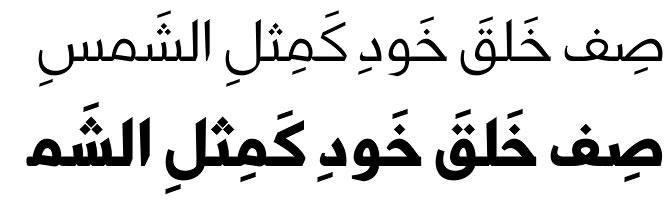
HS Almaha font
HS Almaha font is a modern Arabic typeface that offers many OpenType features. It can be characterized as a very successful combination as it features elements of modern Kufi and linear Naskh. The segments of its letters are made sharper and curvier in order to achieve greater readability. HS Almaha font supports Kurdish, Urdu, Arabic and Persian languages and offers to its users four weights – light, regular, medium and bold. This makes it a great contemporary addition for the Arabic fonts’ family and very suitable for use in books, magazines, newspapers etc.
HS Almaha font is designed by the Arabic designer Hasan Abu Afash, founder of Hiba Studio of Gaza, Palestine. Educated as an engineer, he has a wide range of interests in the field of type design. His work includes creating Arabic fonts, converting fonts from Mac to PC, programming Arabic fonts in OpenType etc. Also, Hasan Abu Afash participates in a number of very important projects in the Arabic world like Burj Dubai Shilia project. His huge gallery of contemporary Arabic fonts features: HS Almidad font, HS Ishraq font, HS Alhandasi font, HS Alkitab font, etc.
Designers: Hasan Abu Afash